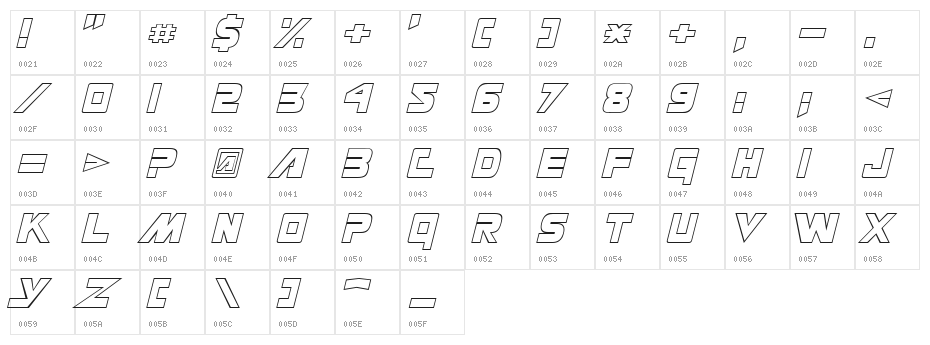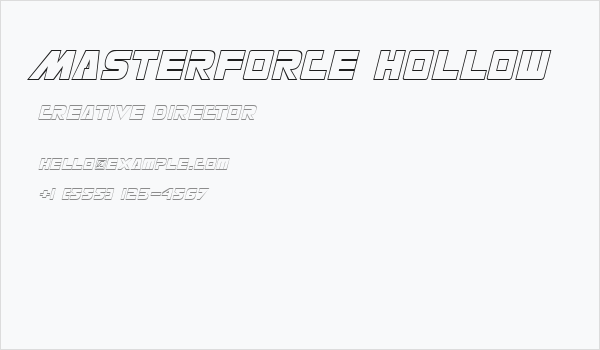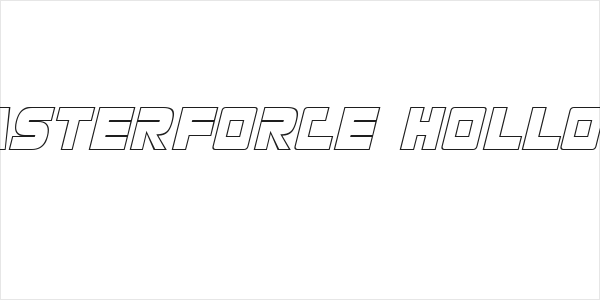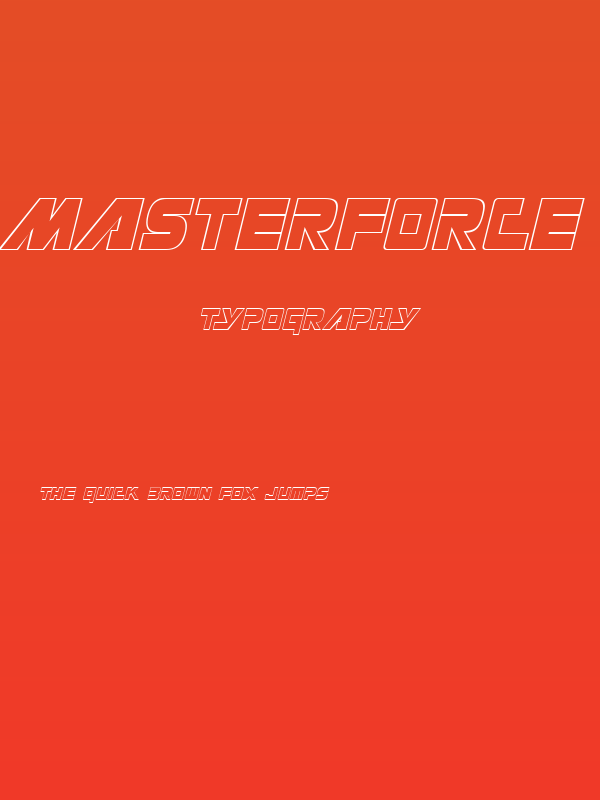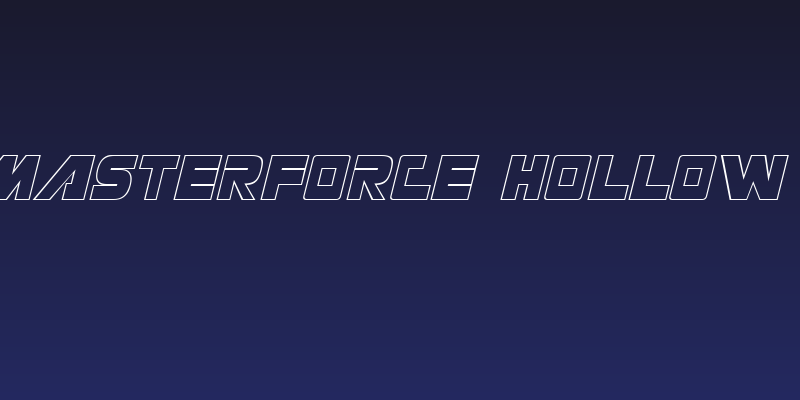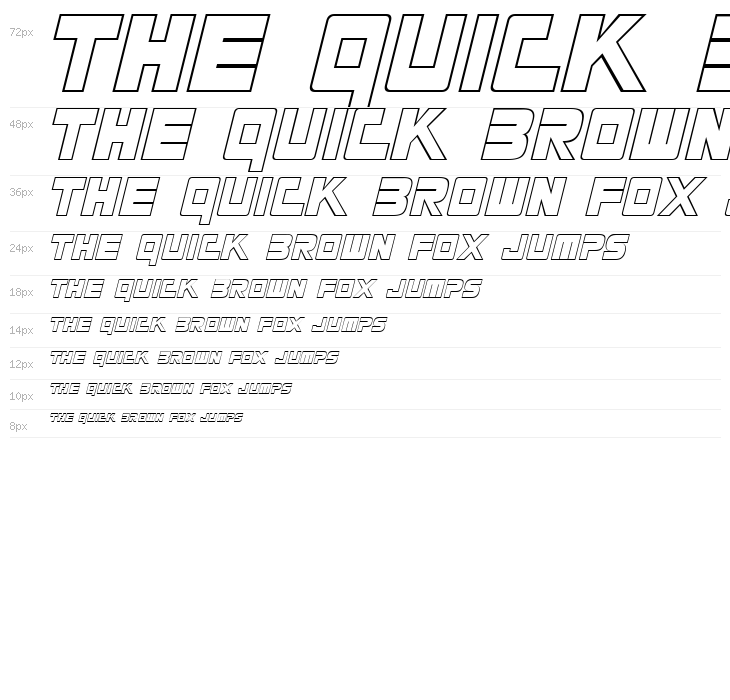
Masterforce Hollow Font
Masterforce Hollow Description
This font features a bold, geometric design with a hollow interior, giving it a futuristic and dynamic appearance. The characters are sharply angled, with a distinct slant that adds a sense of motion and energy. The uppercase letters are uniform in height, while the numerals and special characters maintain the same stylistic approach, ensuring consistency across all glyphs. The hollow effect creates a unique visual impact, making it suitable for standout designs. The overall style is modern and edgy, perfect for projects that require a strong, attention-grabbing typeface.
| Proposed Projects | Ideal for sci-fi themed posters, video game titles, tech branding, and futuristic logos. |